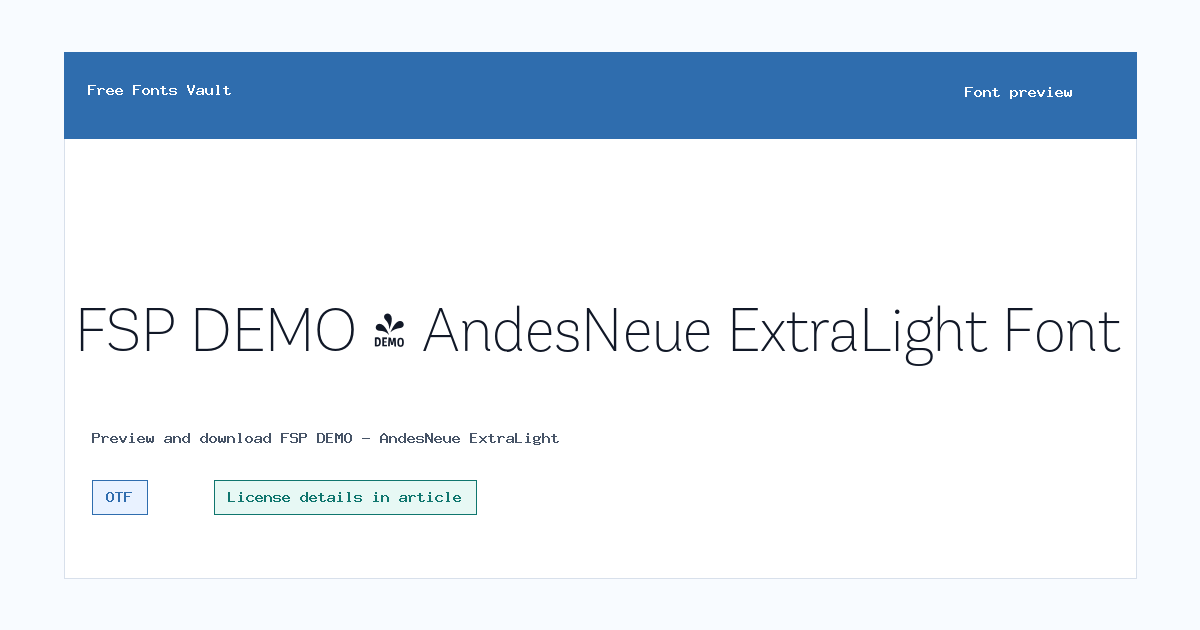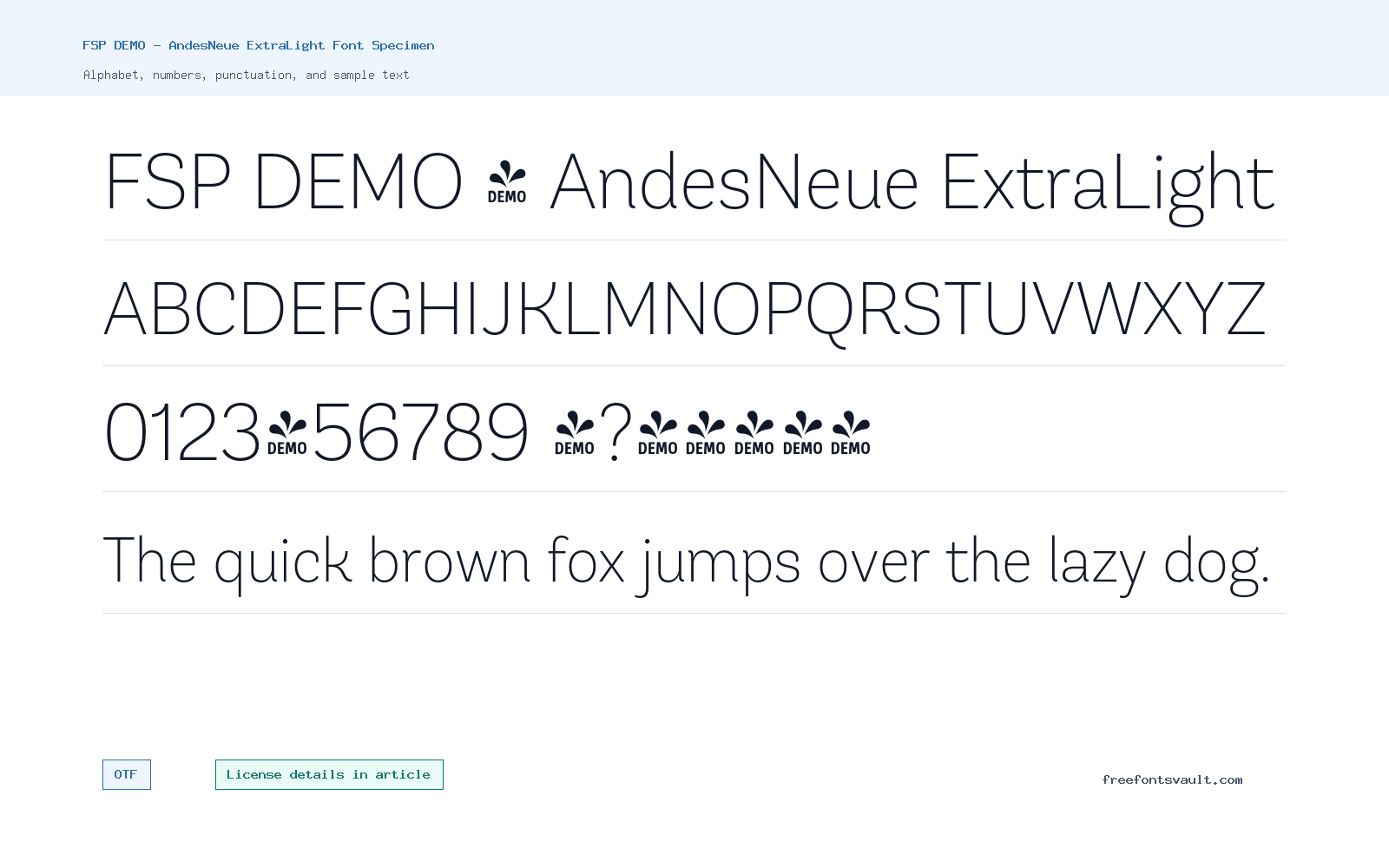
FSP DEMO - AndesNeue ExtraLight
- Designer Daniel Hernandez
- Foundry LatinoType Ltda.
FSP DEMO – AndesNeue ExtraLight font.
FSP DEMO – AndesNeue ExtraLight is a light-weight OTF font with a clean, understated feel. It is best suited to layouts where you want thin lettering, generous spacing, and a quiet modern tone.
About FSP DEMO – AndesNeue ExtraLight
FSP DEMO – AndesNeue ExtraLight comes as a normal-style OTF file with a listed weight of 300. The ExtraLight weight gives text a fine, delicate appearance, so it works best when the design gives the letters enough room to breathe. Try it in the preview for large headings, short titles, editorial labels, and refined display text rather than dense paragraphs.
Because this is a very light style, readability depends heavily on size, contrast, and background. Use it at larger sizes, avoid low-contrast color combinations, and test real words before using it in a final design. For body copy, small captions, or busy images, pair it with a sturdier text font so the layout stays readable.
For best results, set it with plenty of contrast. Extra-light letterforms can look elegant on a clean white or dark background, but they can disappear over textured photos, gradients, or small mobile UI. If the design needs legal text, product specs, captions, or long reading sections, use a heavier companion style and keep this cut for the visual lead.
- ExtraLight 300 weight for thin, refined display text
- Delicate strokes that work best with generous size and contrast
- Large headlines, elegant titles, and editorial display text
- Minimal branding mockups, posters, and clean web hero sections
- Testing refined headlines, fashion-style layouts, and spacious editorial mockups
Daniel Hernandez is listed as the designer, with LatinoType Ltda. listed as the foundry.
Preview real words at the exact size and color you plan to use. If the letters look too faint, increase the size, choose stronger contrast, or switch supporting text to a regular-weight font.
What weight is this font?
It is listed with a 300 weight, which is commonly used for light or extra-light styles.
Is this font good for body text?
It is better for short display text. The thin weight may become hard to read in long paragraphs or small sizes.
Who designed AndesNeue ExtraLight?
The font entry credits Daniel Hernandez, with LatinoType Ltda. listed as the foundry.